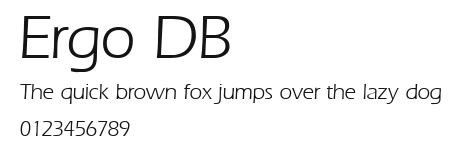
Ergo DB Preview
• Font Name: Ergo DB
Ergo DB.ttf is a modern, elegant sans-serif font designed for ultimate readability and visual harmony. Perfect for branding, headlines, web design, and print materials.